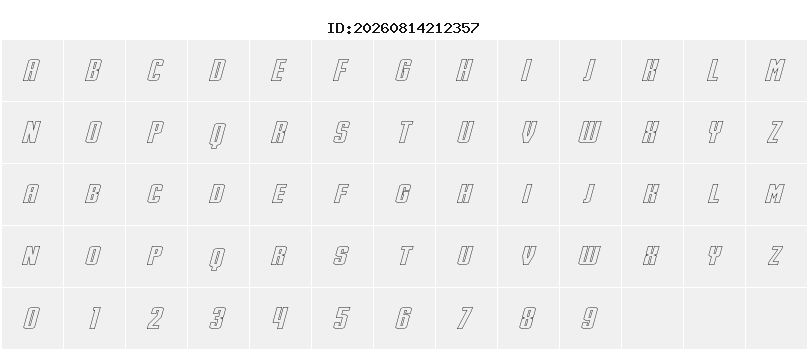
• Font Name: Stark Hollow
• Designer: Neale Davidson
About Stark Hollow.ttf
Stark Hollow.ttf is a modern, elegant sans-serif font designed for ultimate readability and visual harmony. Perfect for branding, headlines, web design, and print materials.